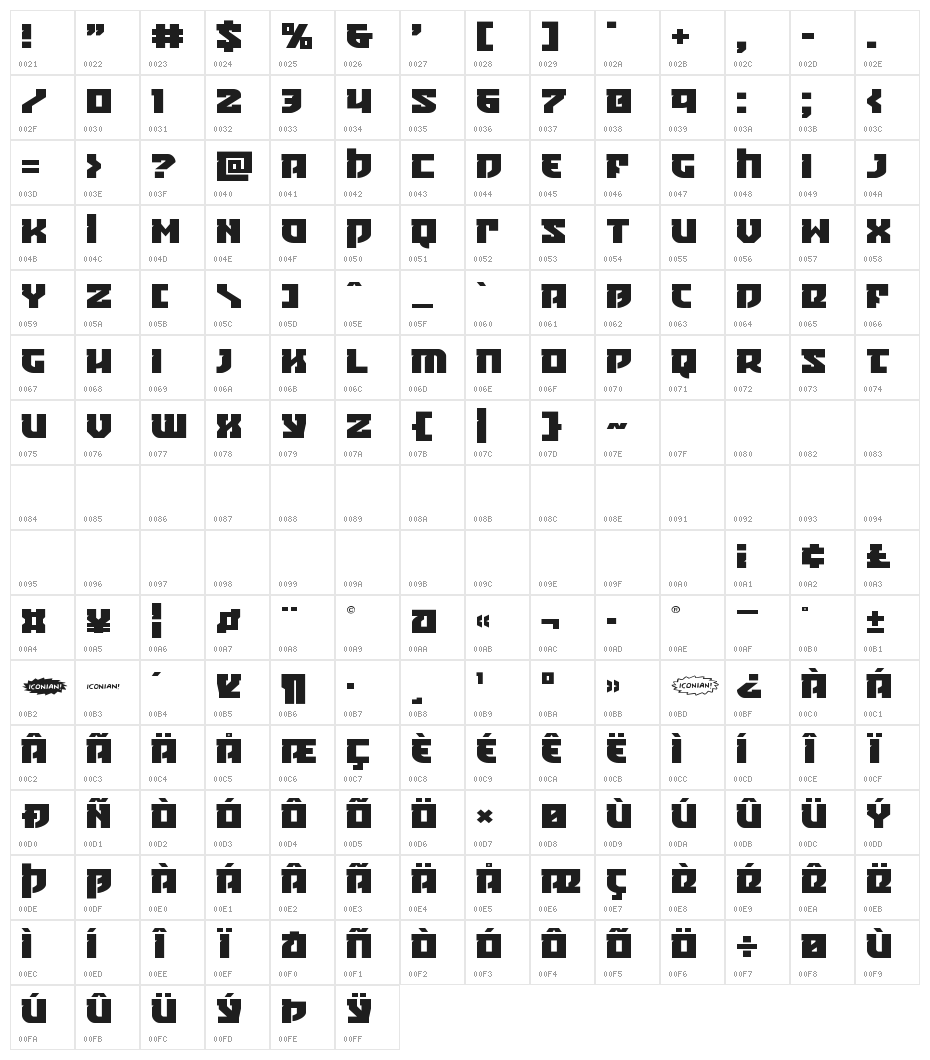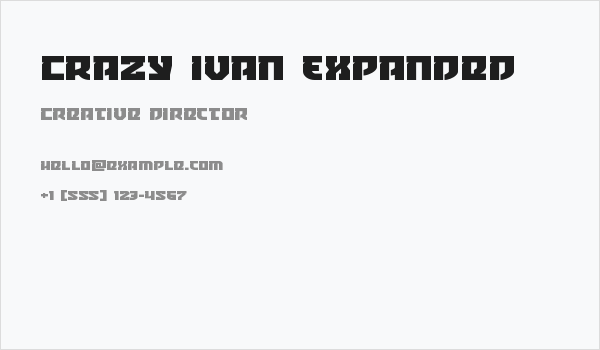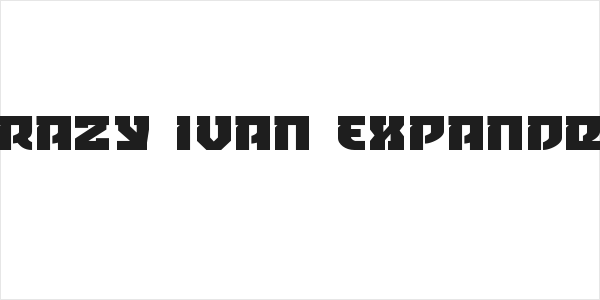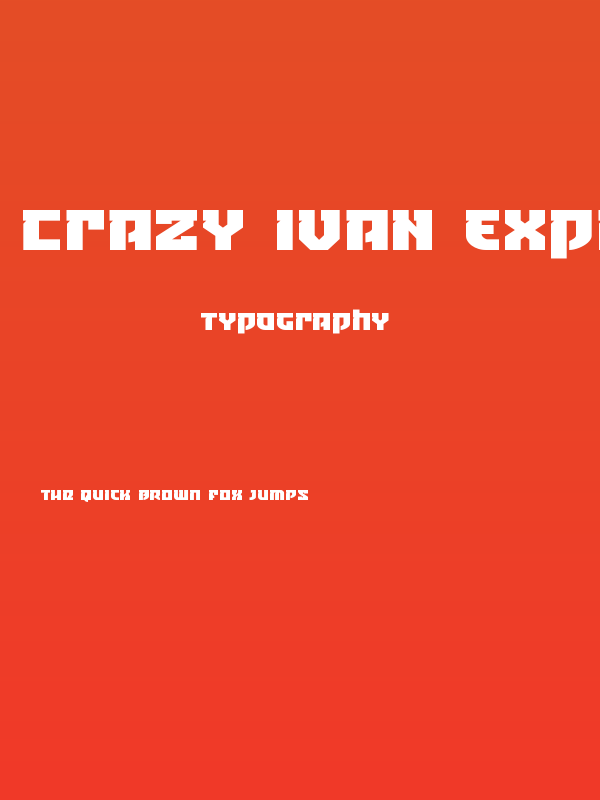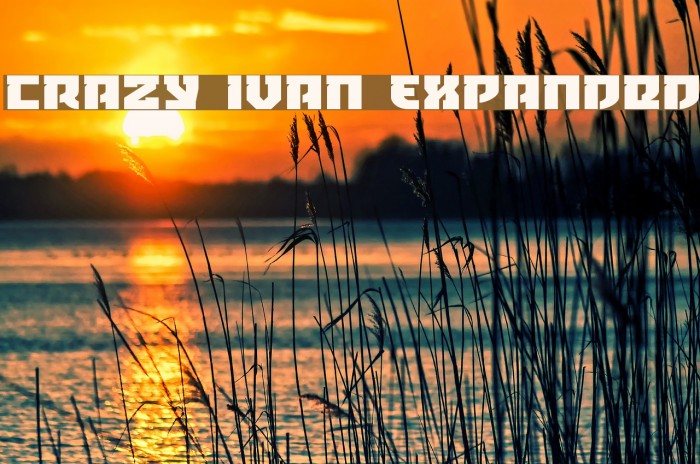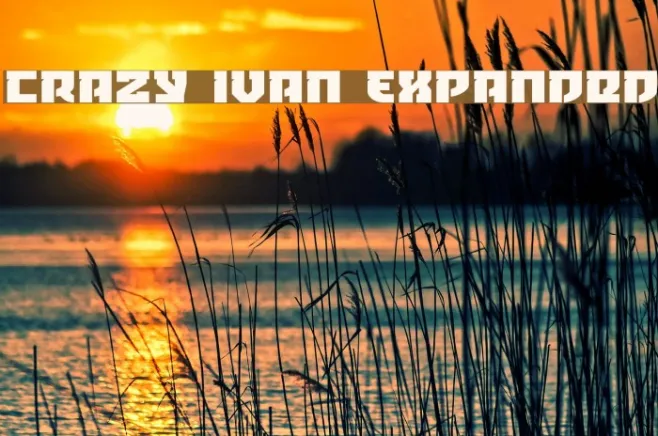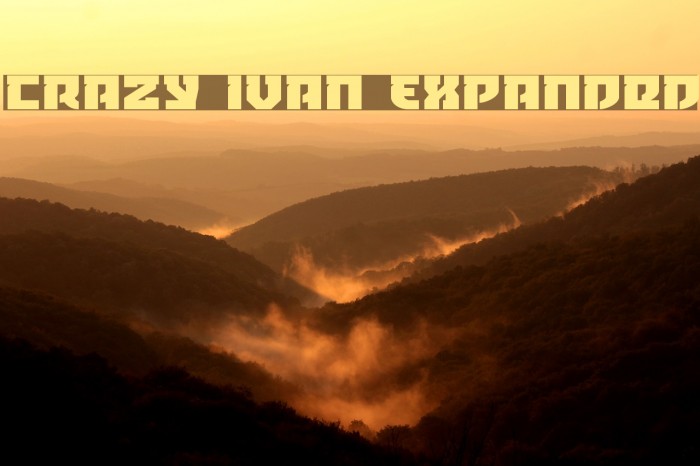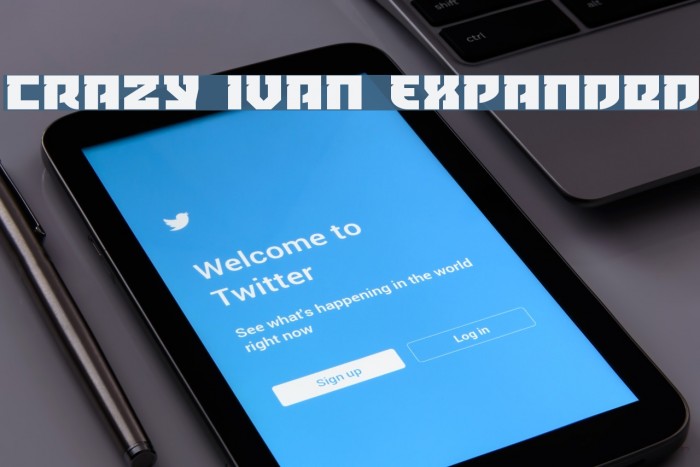
Crazy Ivan Expanded Font
Crazy Ivan Expanded Description
This font features a bold, geometric design with sharp angles and a strong presence. The characters are blocky and wide, giving a sense of stability and power. The uppercase and lowercase letters maintain a consistent style, with the lowercase being slightly smaller but equally impactful. Numbers and special characters follow the same bold and angular design, ensuring uniformity across all glyphs. The font's expanded width adds to its commanding appearance, making it ideal for attention-grabbing headlines or titles. Its unique style is both modern and slightly retro, reminiscent of digital or futuristic themes.